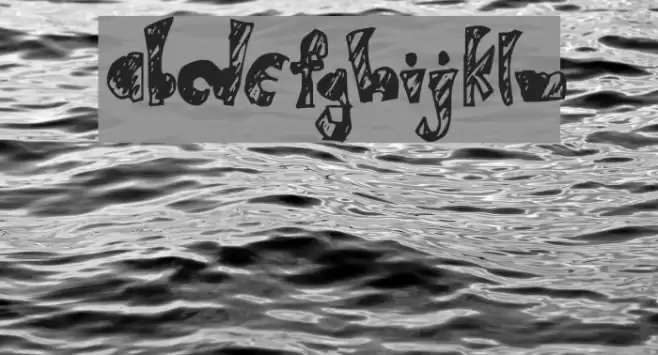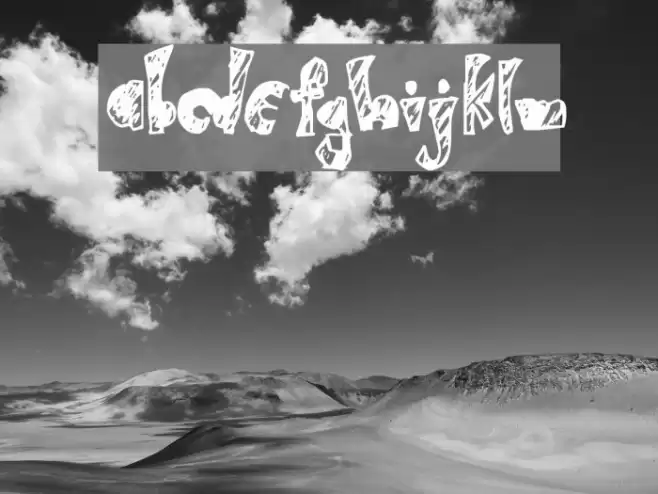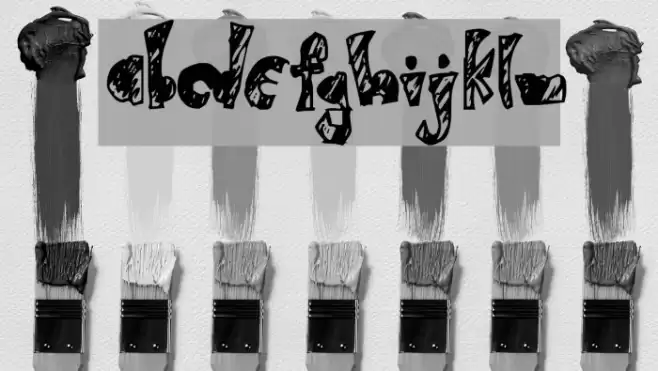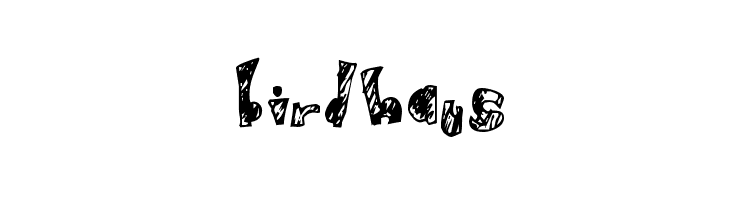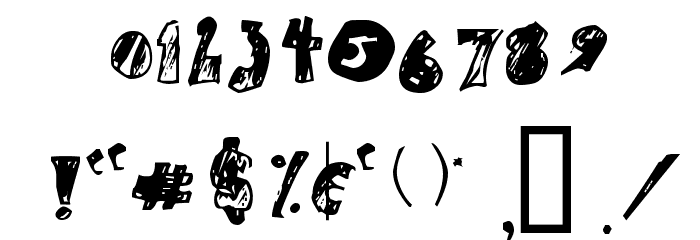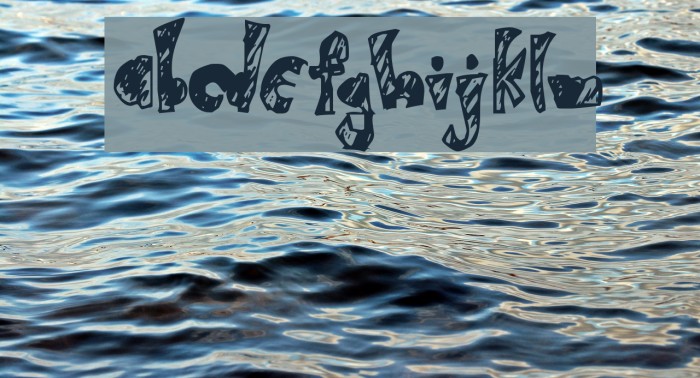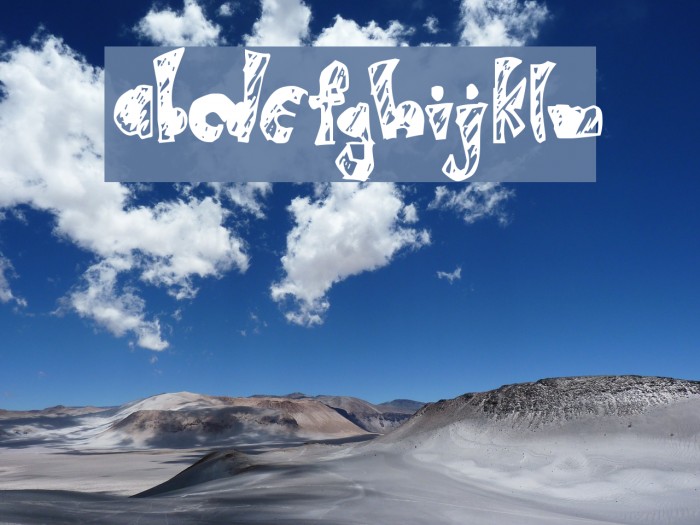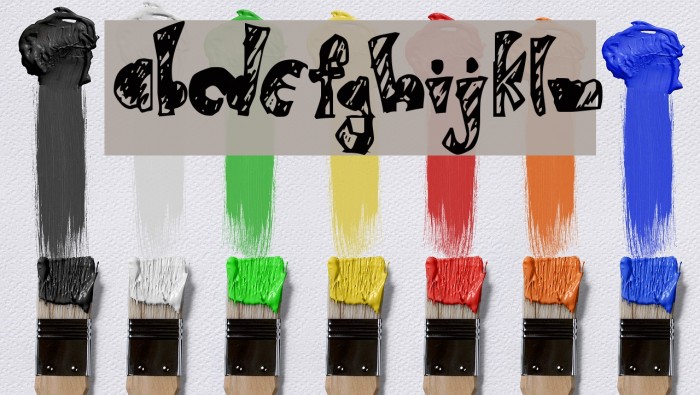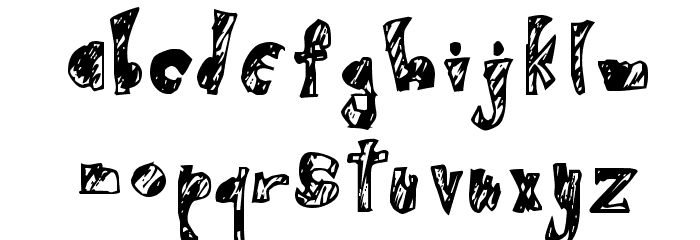
birdhaus Font
birdhaus Description
This font features a bold and playful design with a hand-drawn aesthetic. Each character is filled with intricate patterns and textures, giving it a unique and artistic look. The letters have a whimsical, almost cartoonish style, with uneven lines and varying thicknesses that add to its charm. The font is highly decorative, making it stand out in any design. Its quirky and fun appearance makes it suitable for creative projects that require a touch of personality and flair.
A bold, playful, and hand-drawn decorative font with intricate patterns from Uncategorized fonts.
- Proposed Projects: Ideal for children's books, playful branding, creative posters, and artistic invitations.